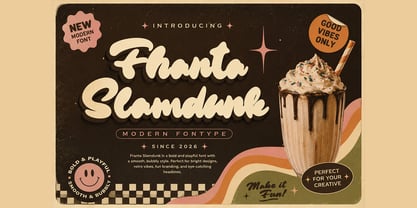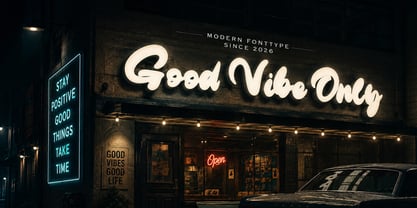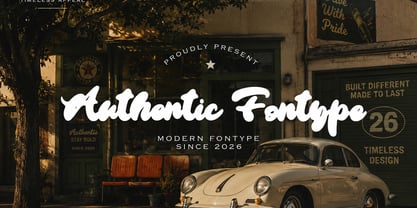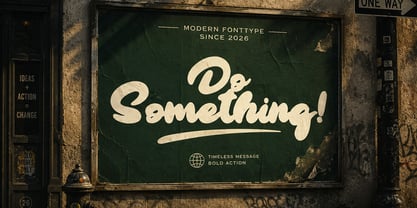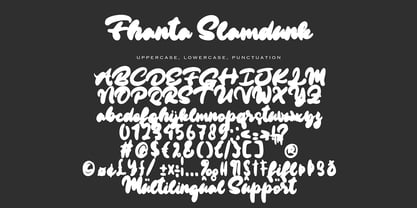
Fhanta Slamdunk
Fhanta Slamdunk is a bold and playful modern display font that blends retro charm with smooth, bubbly curves. Designed with a soft yet confident personality, this typeface brings a fun, energetic, and nostalgic feel to any creative project. Its thick letterforms and rounded edges create a friendly visual impact while maintaining strong readability, making it perfect for standout branding and eye-catching typography.
Inspired by vintage aesthetics and contemporary retro trends, Fhanta Slamdunk works beautifully for logos, food packaging, café branding, posters, social media graphics, merchandise, headlines, apparel, product labels, invitations, and playful editorial designs. Whether you're creating a cheerful brand identity or adding a nostalgic touch to modern visuals, this font delivers warmth, fun, and personality in every letter.
With its smooth connections and chunky silhouette, Fhanta Slamdunk captures the essence of playful retro culture while remaining versatile enough for modern creative needs. Perfect for creators looking to make bold, memorable, and stylish typography with a cozy vintage twist.
Features / Style
• Bold & Chunky Letterforms
• Smooth and Bubbly Curves
• Retro Modern Aesthetic
• Playful Yet Professional Feel
• Highly Eye-Catching for Headlines
• Great for Branding & Merchandise
• Friendly, Warm, and Nostalgic Personality
Perfect For
Branding, Logo Design, Café & Restaurant Branding, Food Packaging, Retro Posters, Vintage Advertising, Apparel Design, Merchandise, Social Media Content, YouTube Thumbnails, Children’s Branding, Packaging Design, Editorial Headlines, Sticker Design, Craft Projects, Event Posters, and Creative Typography.